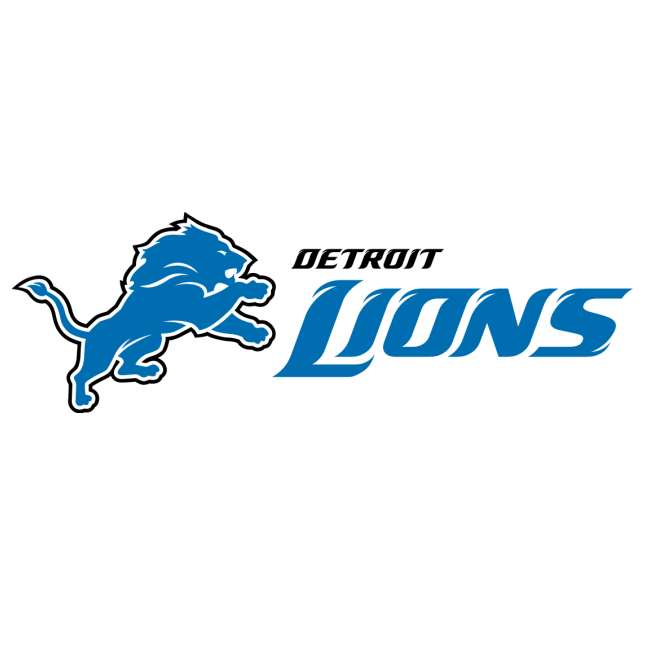
Detroit Lions Font
The Detroit Lions logo features a custom-designed furry typeface called NFL Lions, exclusive to the team. While this font is not publicly available, a similar free font called Wayne, designed by Tobin Strong, can be downloaded from the Fonts Used Section.